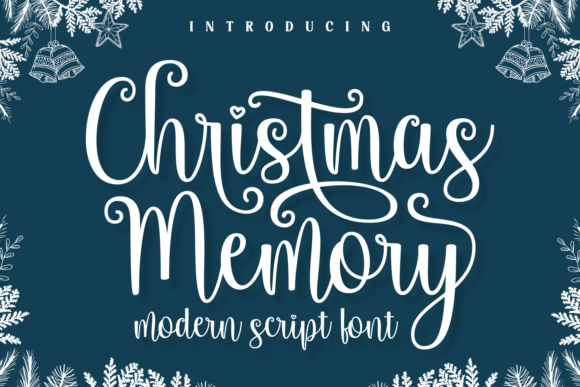
Introducing Christmas Memory Font: Add a Touch of Luxury to Your Designs
Are you looking for a font that can add a touch of luxury and magic to your design projects? Look no further than the Christmas Memory Font. This enchanting handwritten font is perfect for creating stunning designs that will leave a lasting impression on your audience. In this article, we’ll take a closer look at the Christmas Memory Font, its features, and how you can use it to elevate your designs.
What is Christmas Memory Font?
Christmas Memory Font is a beautiful handwritten font that is designed to add a touch of luxury and sophistication to your designs. It’s perfect for creating Christmas-themed designs, but its elegant and refined style makes it suitable for a wide range of projects, from branding and advertising to packaging and digital media.
Key Features of Christmas Memory Font
So, what makes Christmas Memory Font so special? Here are some of its key features:
- Handwritten Style: The font has a beautiful handwritten style that adds a touch of elegance and sophistication to your designs.
- Luxury Spark: The font is designed to add a luxury spark to your designs, making it perfect for high-end branding and advertising projects.
- Enchanting Ligatures: The font comes with a range of enchanting ligatures that will add a touch of magic to your designs.
Benefits of Using Christmas Memory Font
So, why should you use the Christmas Memory Font? Here are some benefits:
- Adds a Touch of Luxury: The font adds a touch of luxury and sophistication to your designs.
- Unique and Creative: The font is unique and creative, making it perfect for designers who want to stand out from the crowd.
- Versatile: The font is versatile and can be used for a wide range of projects, from branding and advertising to packaging and digital media.
Tips for Using Christmas Memory Font
Here are some tips for using the Christmas Memory Font:
- Use it for Headings: Use the font for headings and titles to add a touch of luxury and sophistication.
- Pair it with Other Fonts: Pair the font with other fonts to create a unique and creative design.
- Experiment with Colors: Experiment with different colors to find the perfect combination for your design.
- Use it for Branding: Use the font for branding and advertising projects to add a touch of luxury and sophistication.
In conclusion, the Christmas Memory Font is a beautiful and enchanting handwritten font that can add a touch of luxury and sophistication to your designs. Its PUA encoded feature makes it easy to use and customize, and its range of ligatures and glyphs will add a touch of magic to your designs. Whether you’re a designer, artist, or crafty DIY enthusiast, this font is perfect for anyone looking to create stunning designs that will leave a lasting impression on their audience.
- What is Christmas Memory Font?
- Christmas Memory Font is a beautiful handwritten font that is designed to add a touch of luxury and sophistication to your designs.